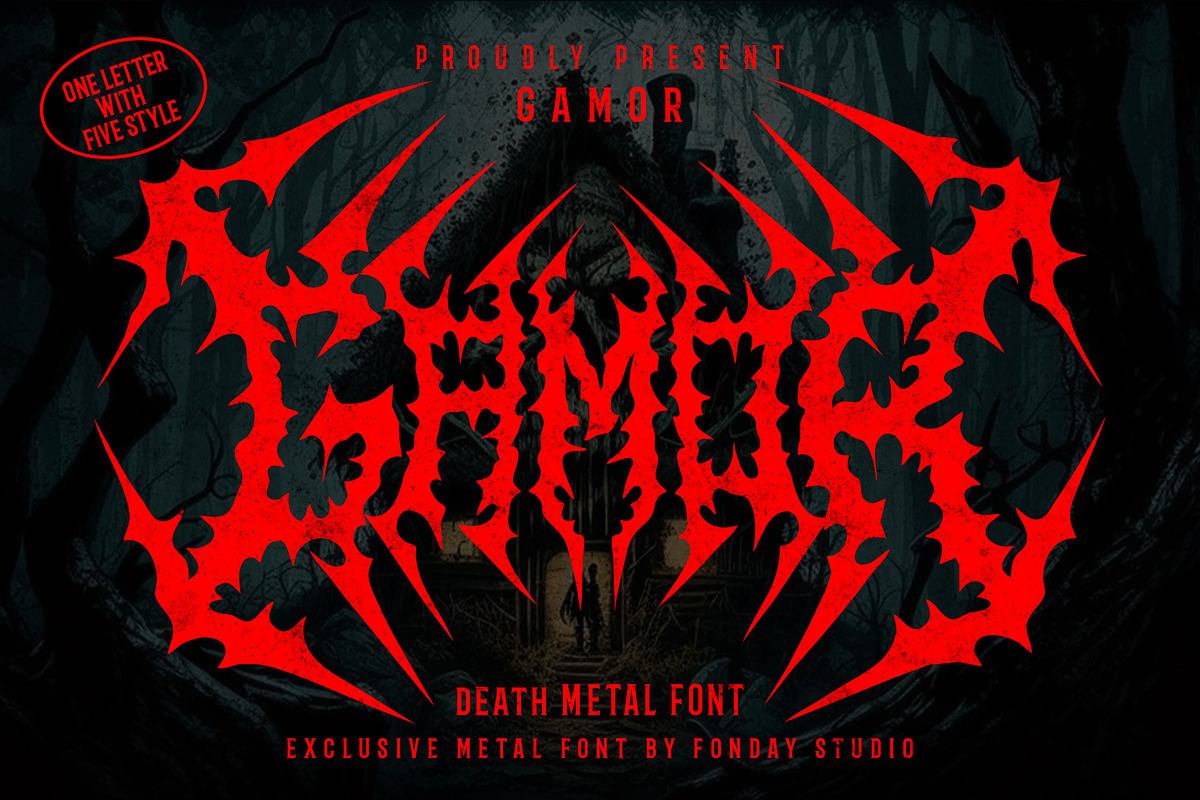
GAMOR – Black Metal Font Free Download
GAMOR – Black Metal Font Free Download is an intense, raw, and brutally expressive typeface built for the darkest of design aesthetics. Inspired by the chaotic and aggressive visual language of black metal music, GAMOR features razor-sharp strokes, distorted forms, and a chaotic energy that perfectly fits album covers, band logos, horror visuals, underground event posters, and extreme fashion branding.
This font doesn’t play nice—it’s made to dominate the visual space with unapologetic power. Whether you’re creating artwork for a death metal band or a horror-themed streetwear line, GAMOR gives your typography a sinister edge and extreme character.